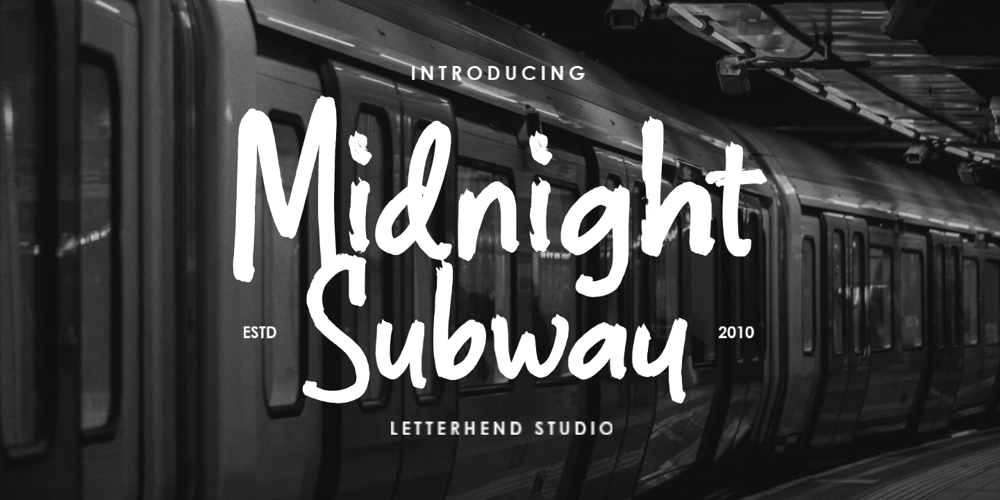
Midnight Subway Font Family was designed by Hendry Juanda and published by Letterhend. Midnight Subway contains 1 styles and family package options. Midgnight Subway is a marker handwriten. This type of font perfectly made to be applied especially in headlines which is need a standout font, and the other various formal forms such as invitations, labels, logos, magazines, books, greeting / wedding cards, packaging, fashion, make up, stationery, novels, labels or any type of advertising purpose.Features : Uppercase & lowercase Numbers and punctuation Alternates & Ligatures Multilingual PUA encoded We highly recommend using a program that supports OpenType features and Glyphs panels like many of Adobe apps and Corel Draw, so you can see and access all Glyph variations.